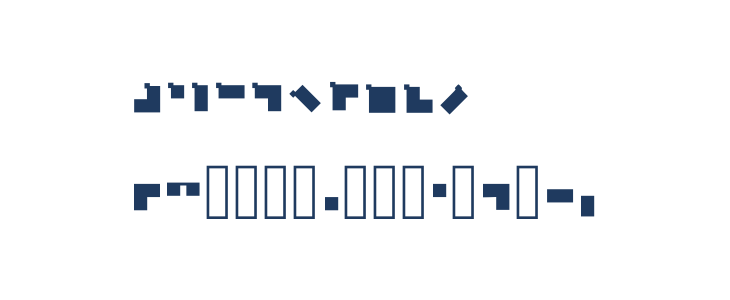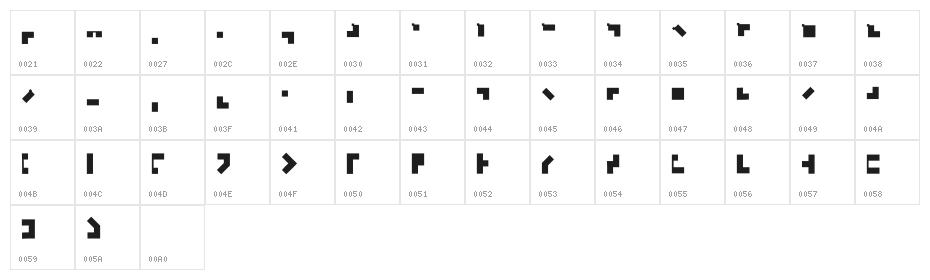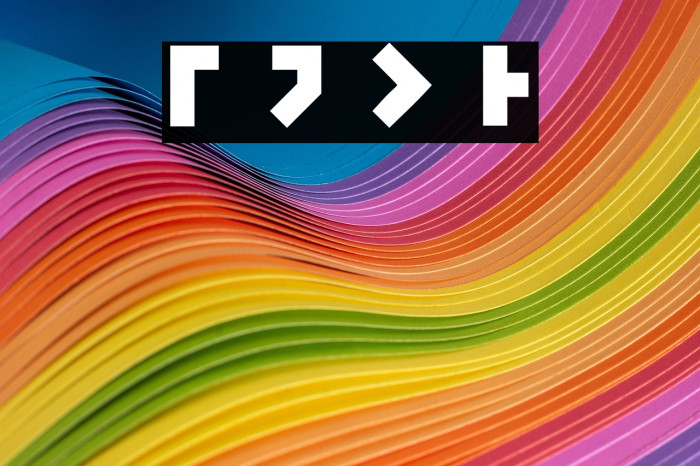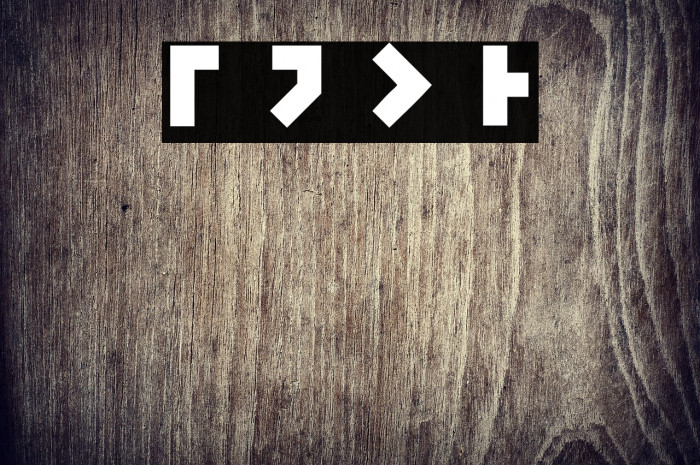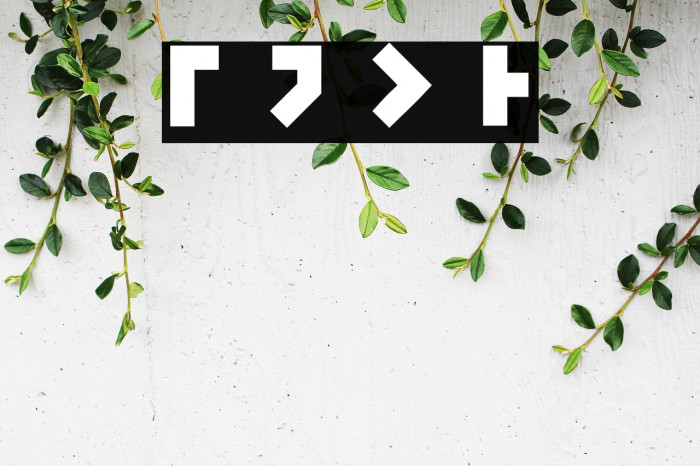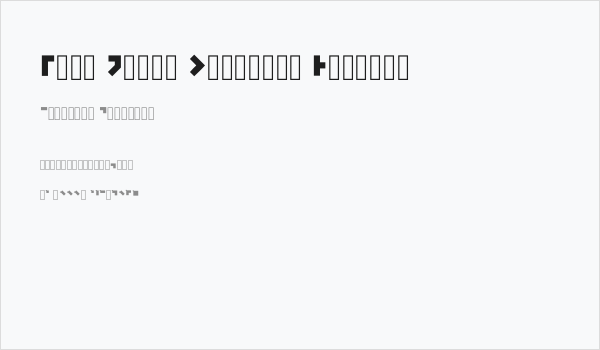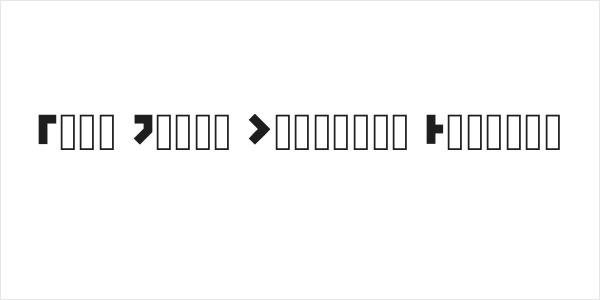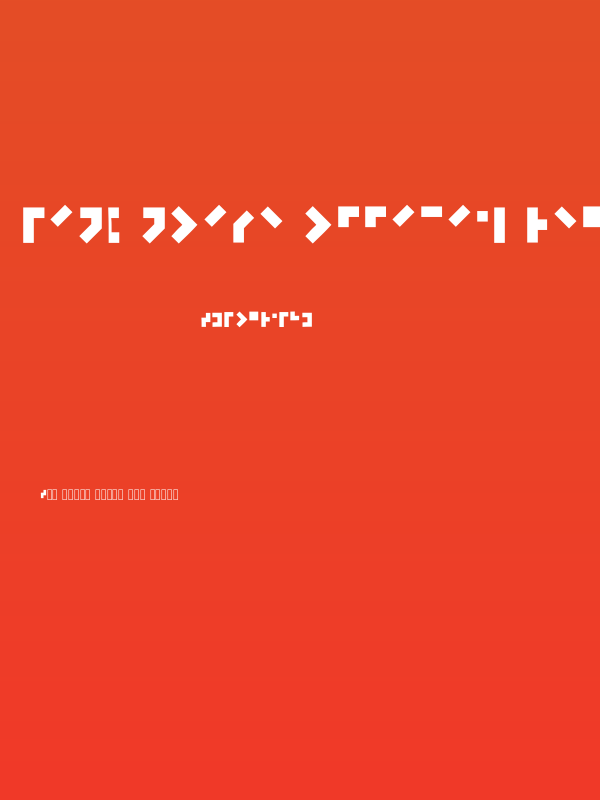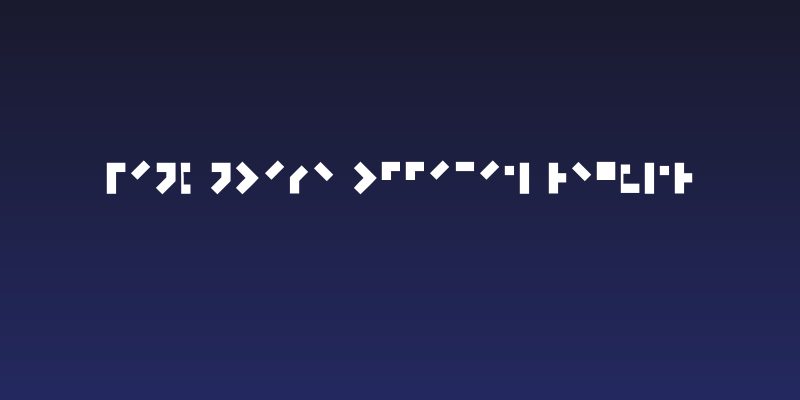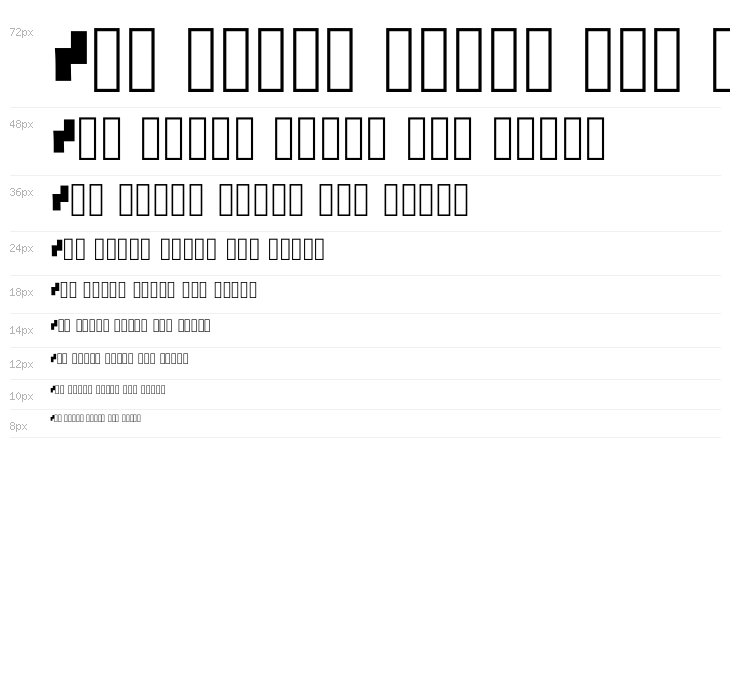
Pink Noise Official Regular Font
Pink Noise Official Regular Description
This font features a highly geometric and abstract design, characterized by bold, block-like shapes that form each character. The style is reminiscent of digital or futuristic aesthetics, with each letter composed of angular, straight lines and sharp corners. The uniformity in stroke width across all characters gives it a cohesive and structured appearance. The font lacks traditional curves, opting instead for a more rigid and mechanical look, making it stand out as a modern and unconventional choice. Its distinct style is ideal for projects that aim to convey a sense of innovation, technology, or avant-garde design.
| Proposed Projects | Ideal for technology branding, digital art projects, modern posters, and sci-fi themed designs. |